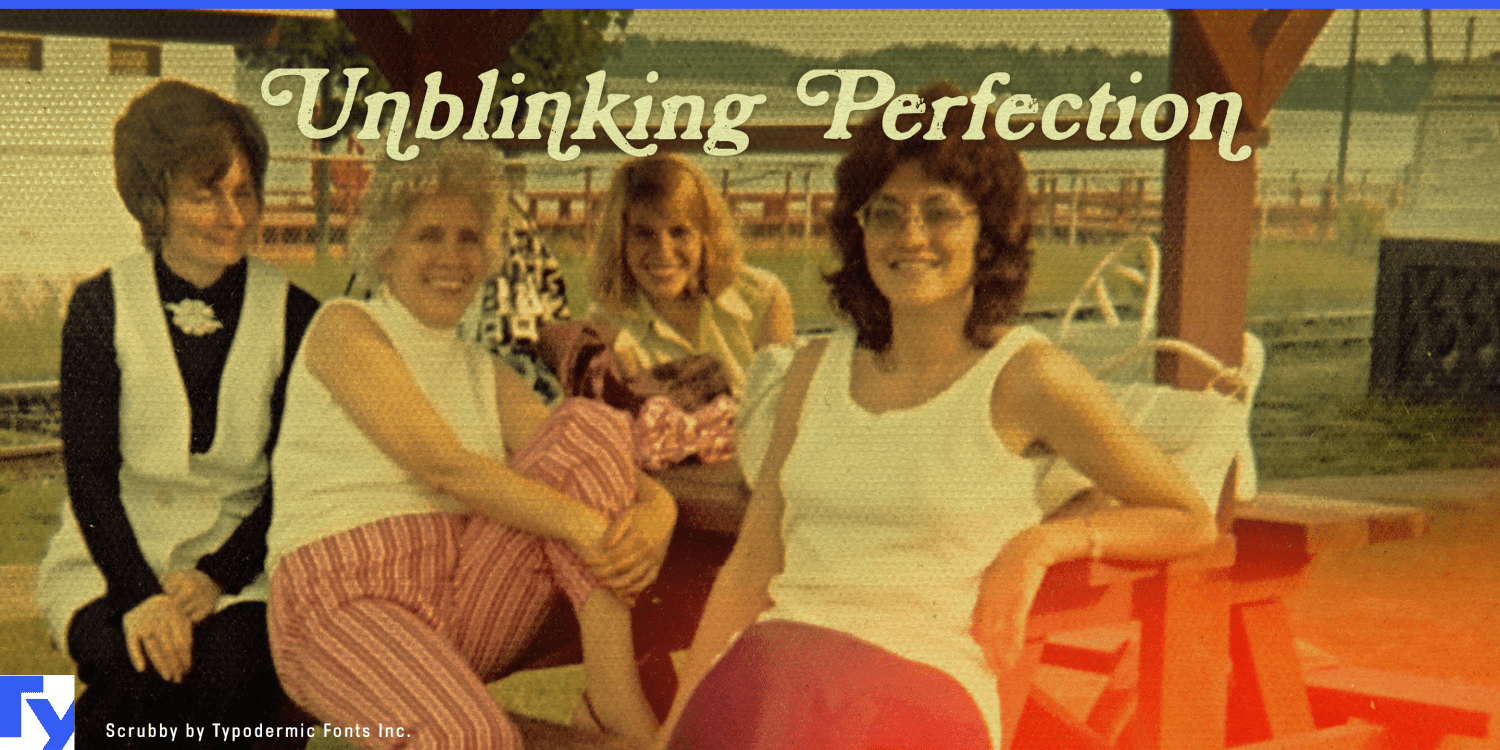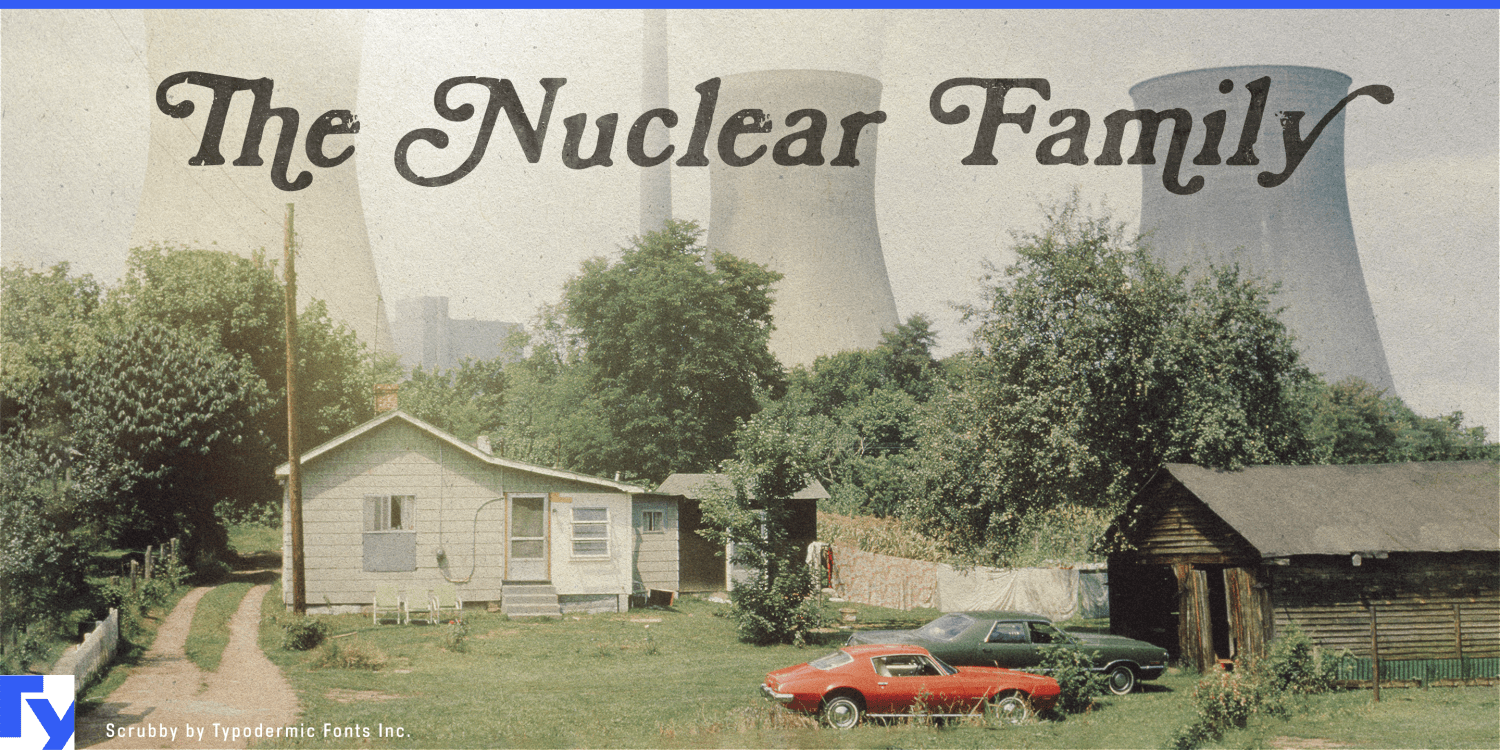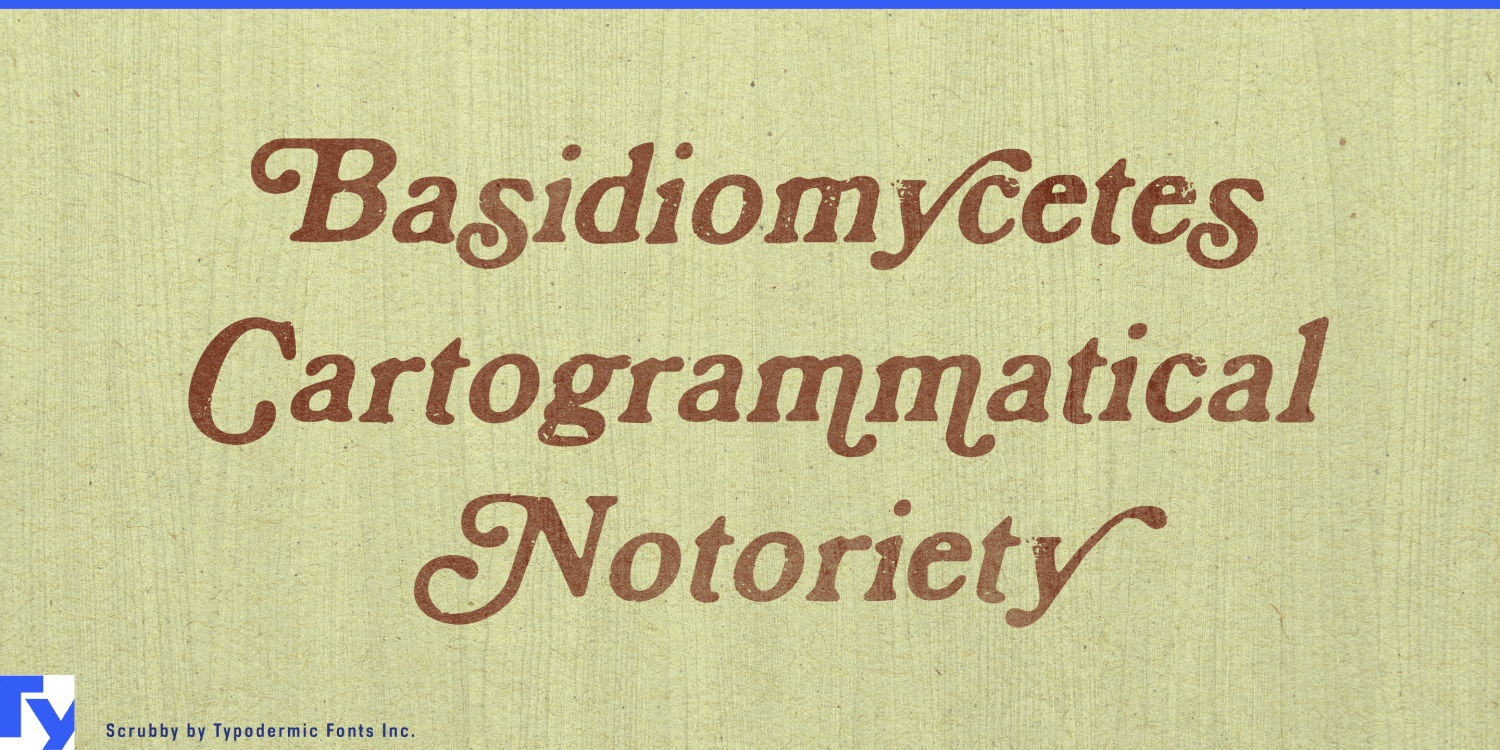
About Scrubby
Cruise back to the groovy early ’70s with Scrubby, the typeface that’s totally outta sight! This funky fresh font is like a time machine, whisking you away to an era of bell-bottoms, lava lamps, and righteous vibes. Inspired by the legendary…